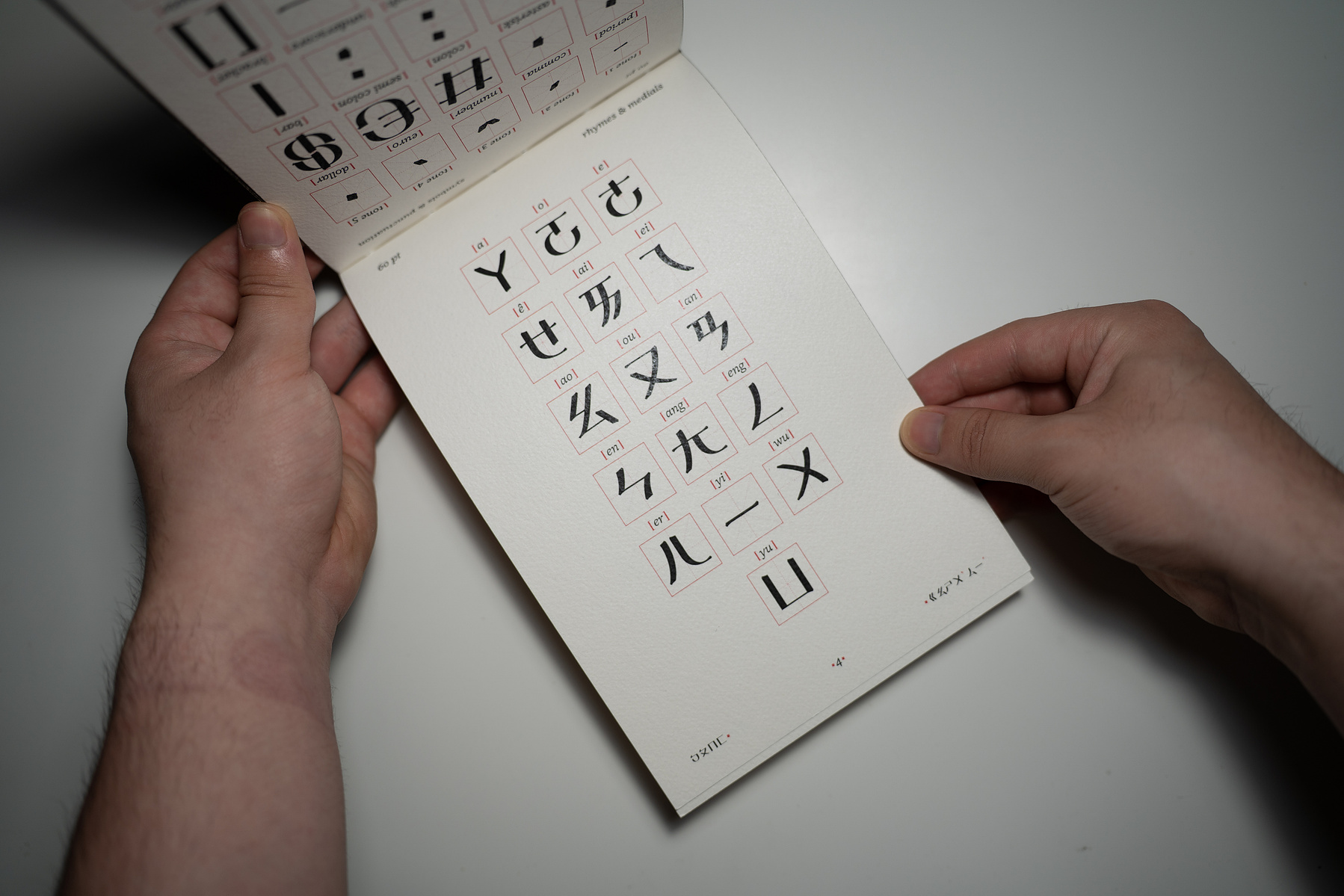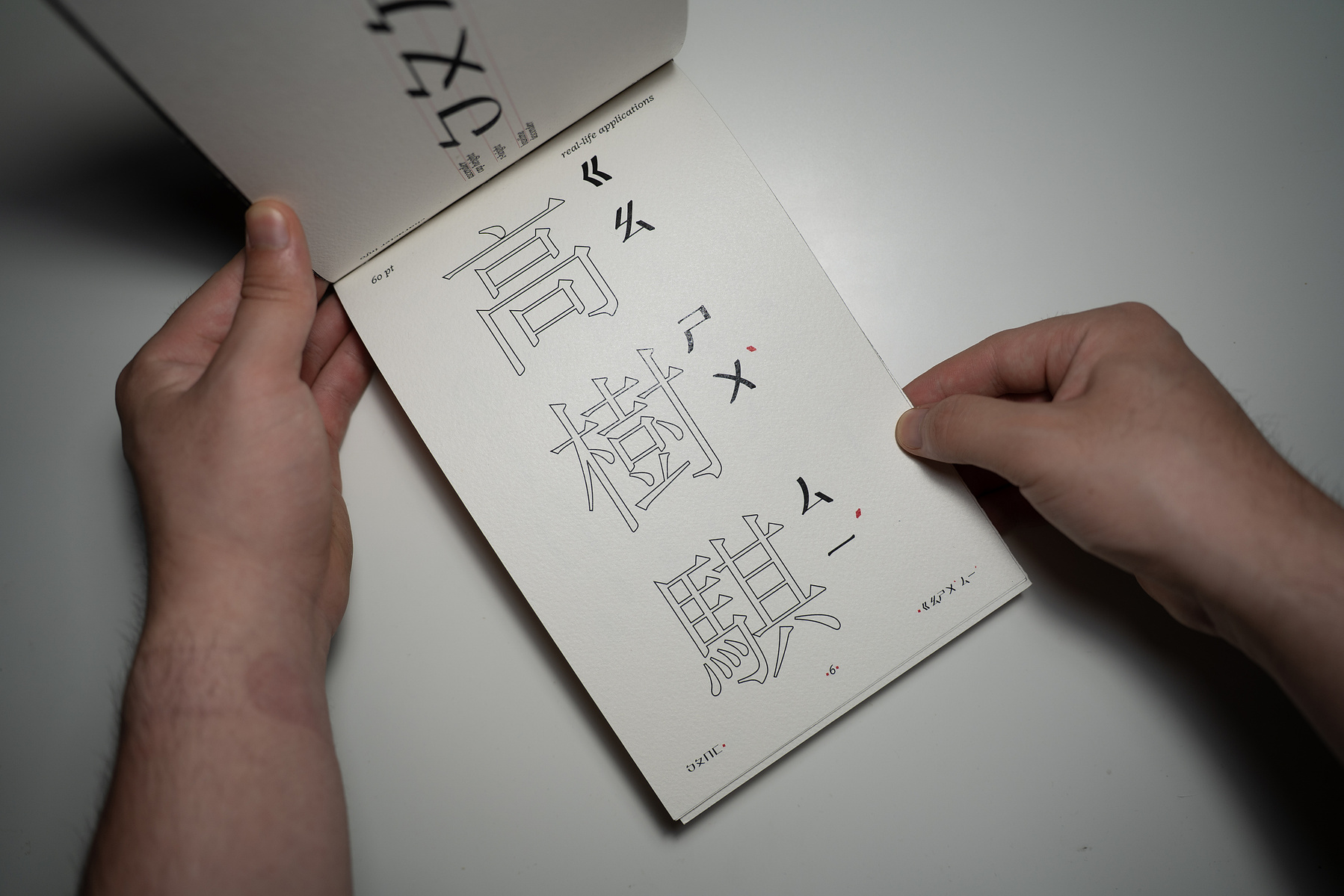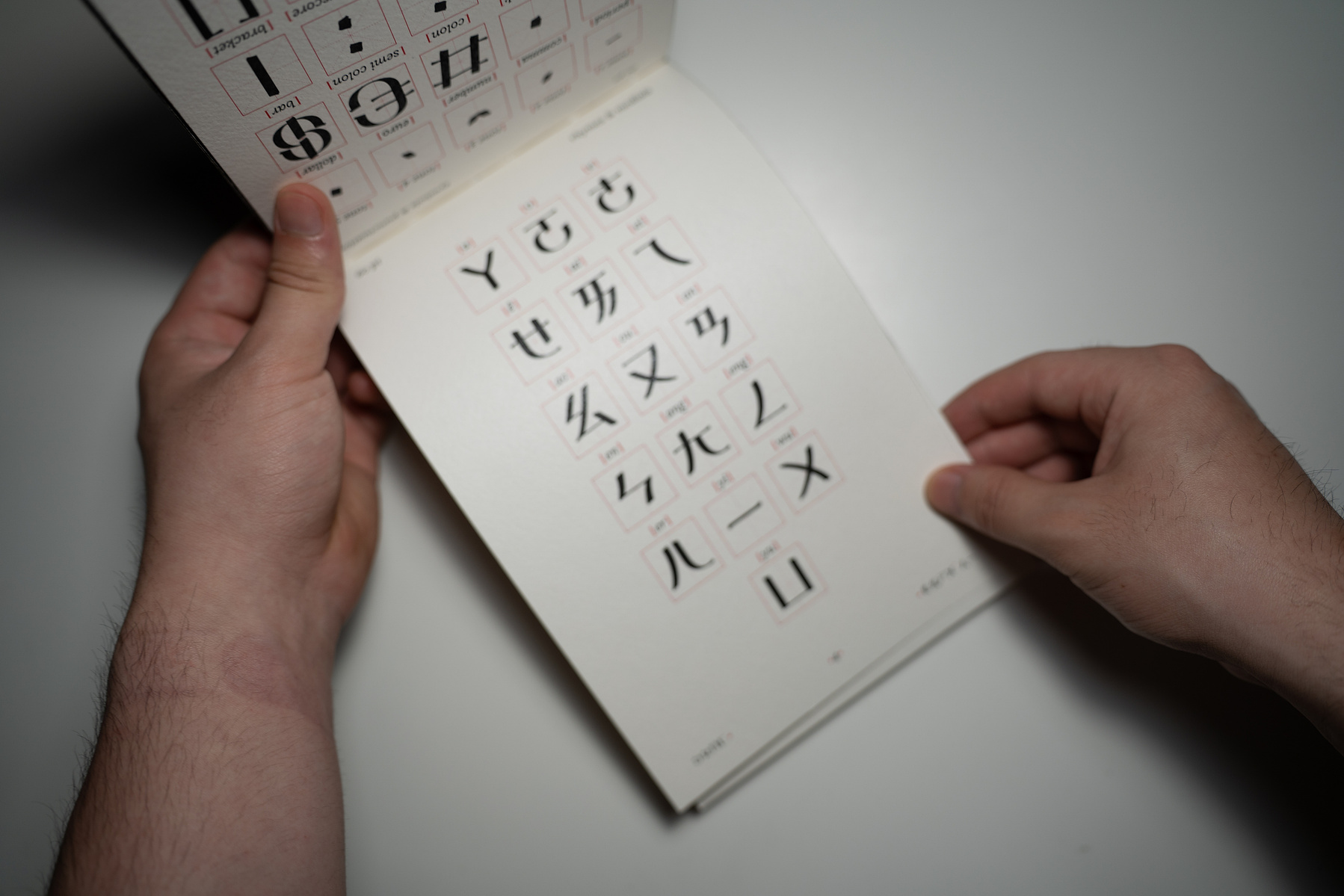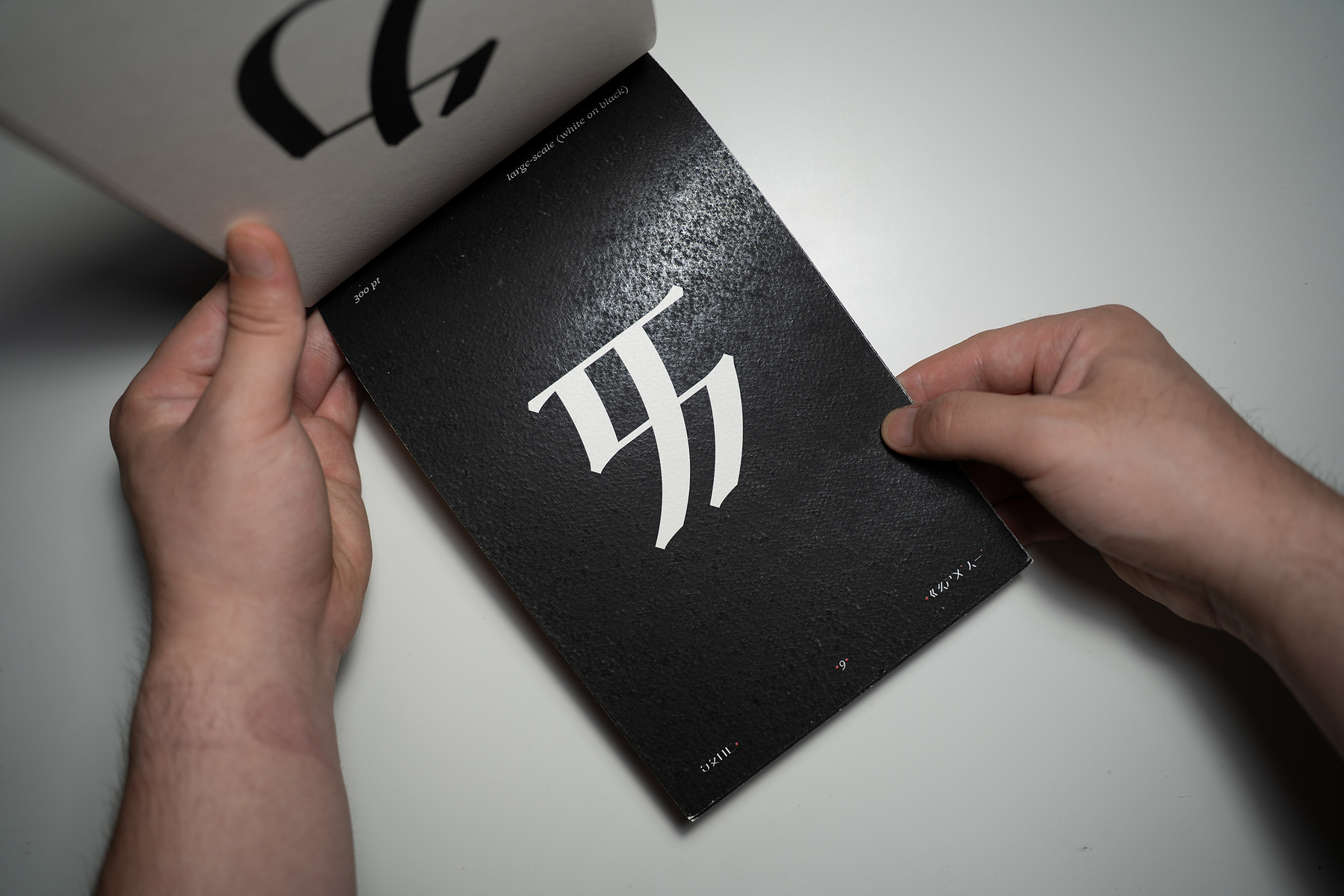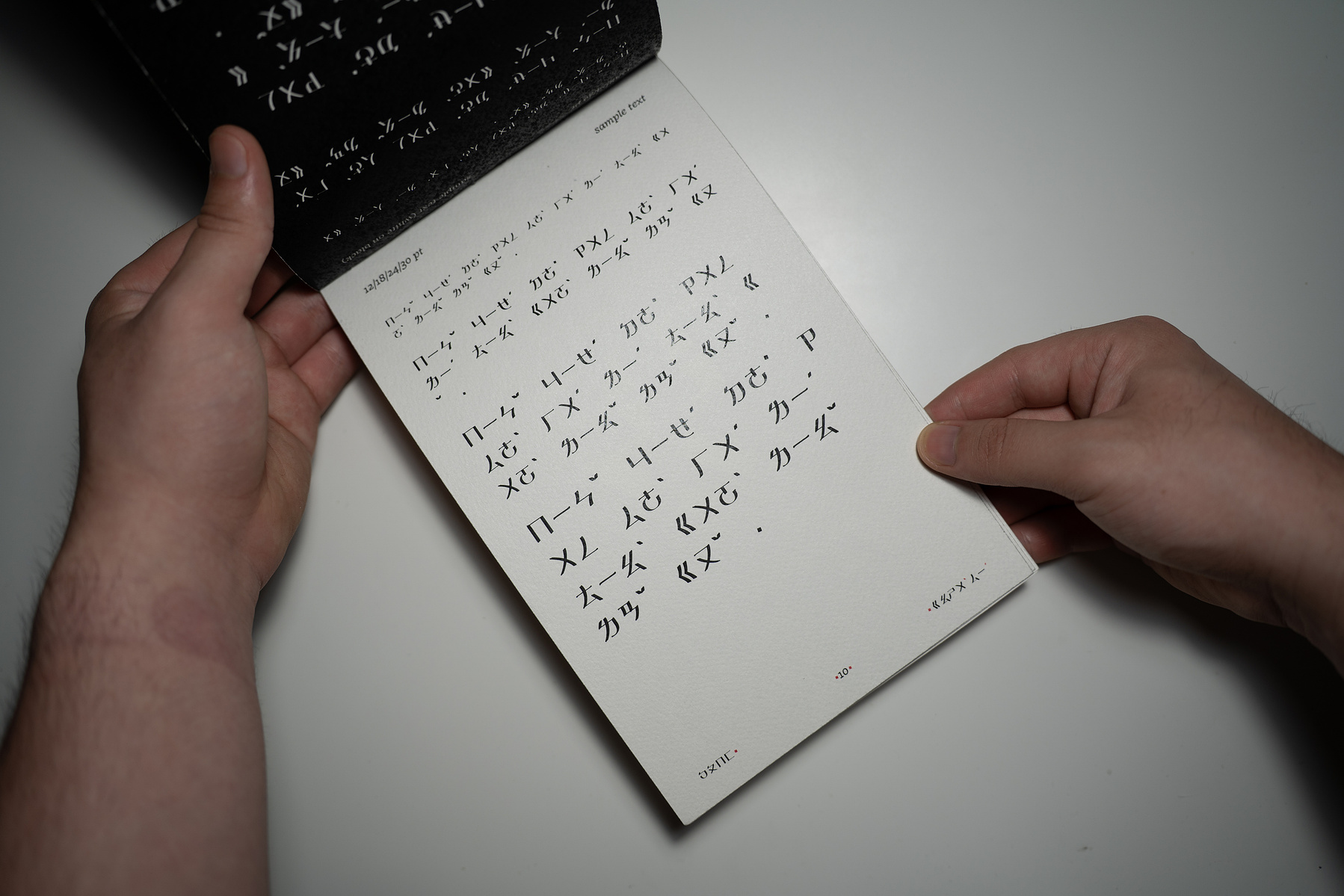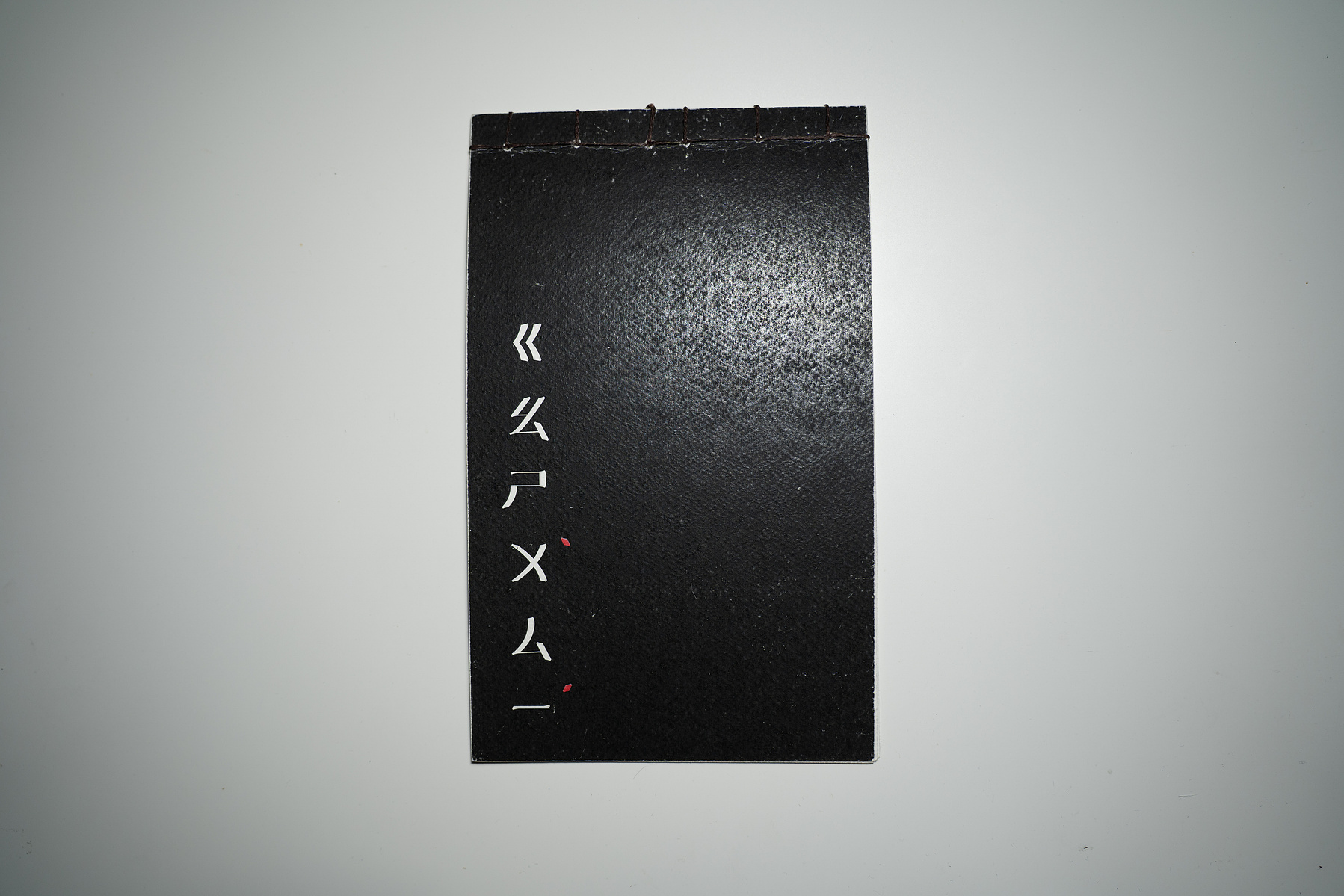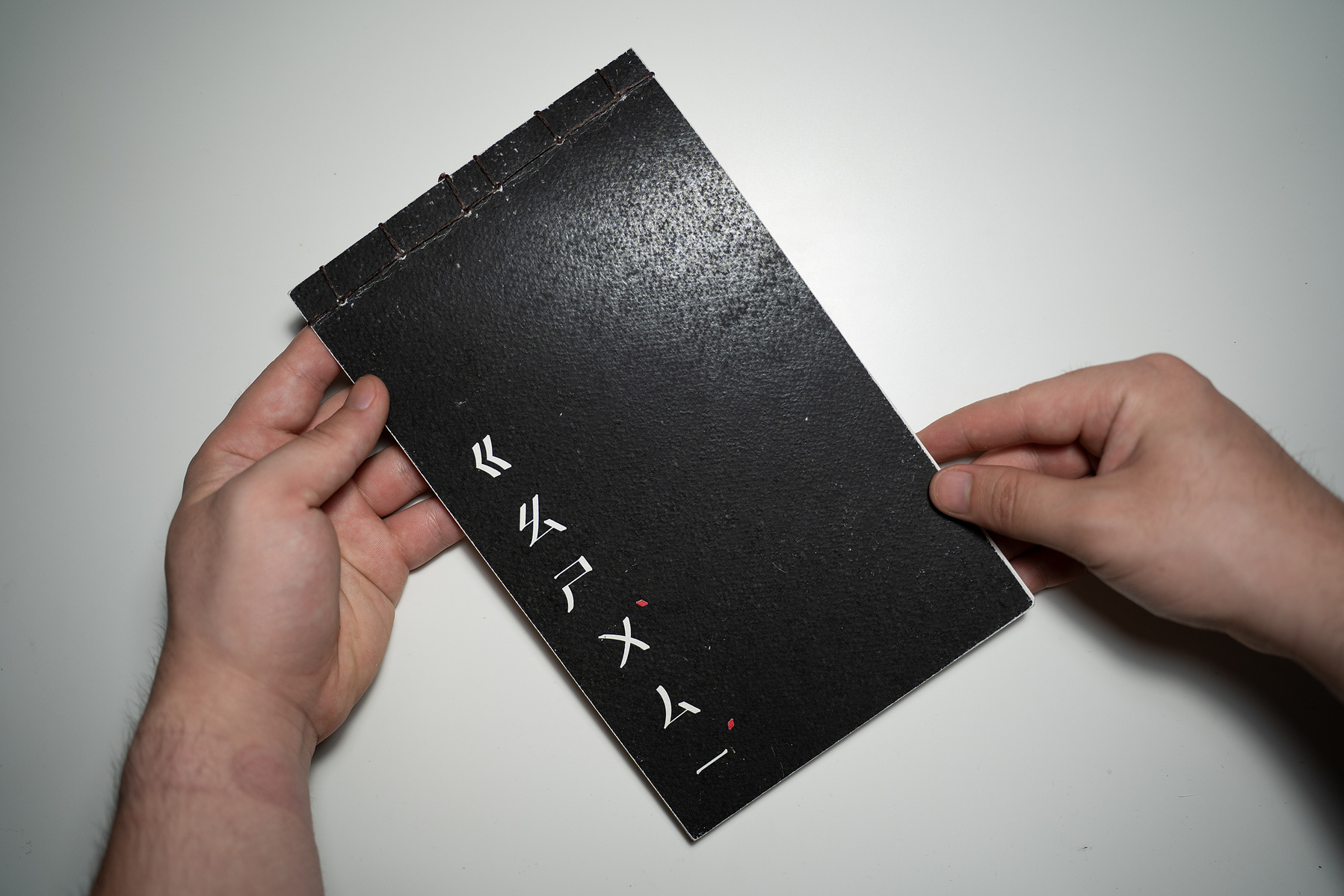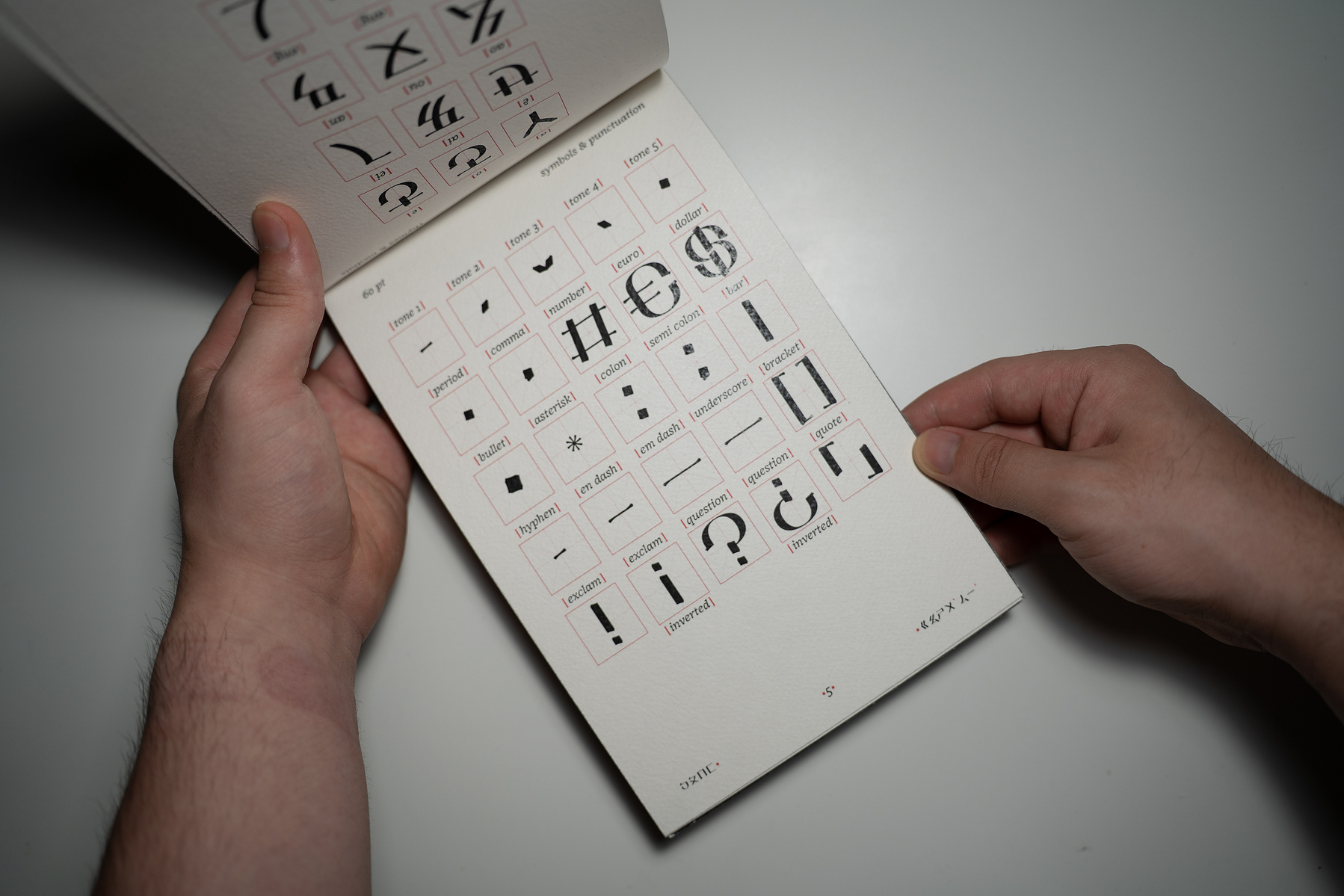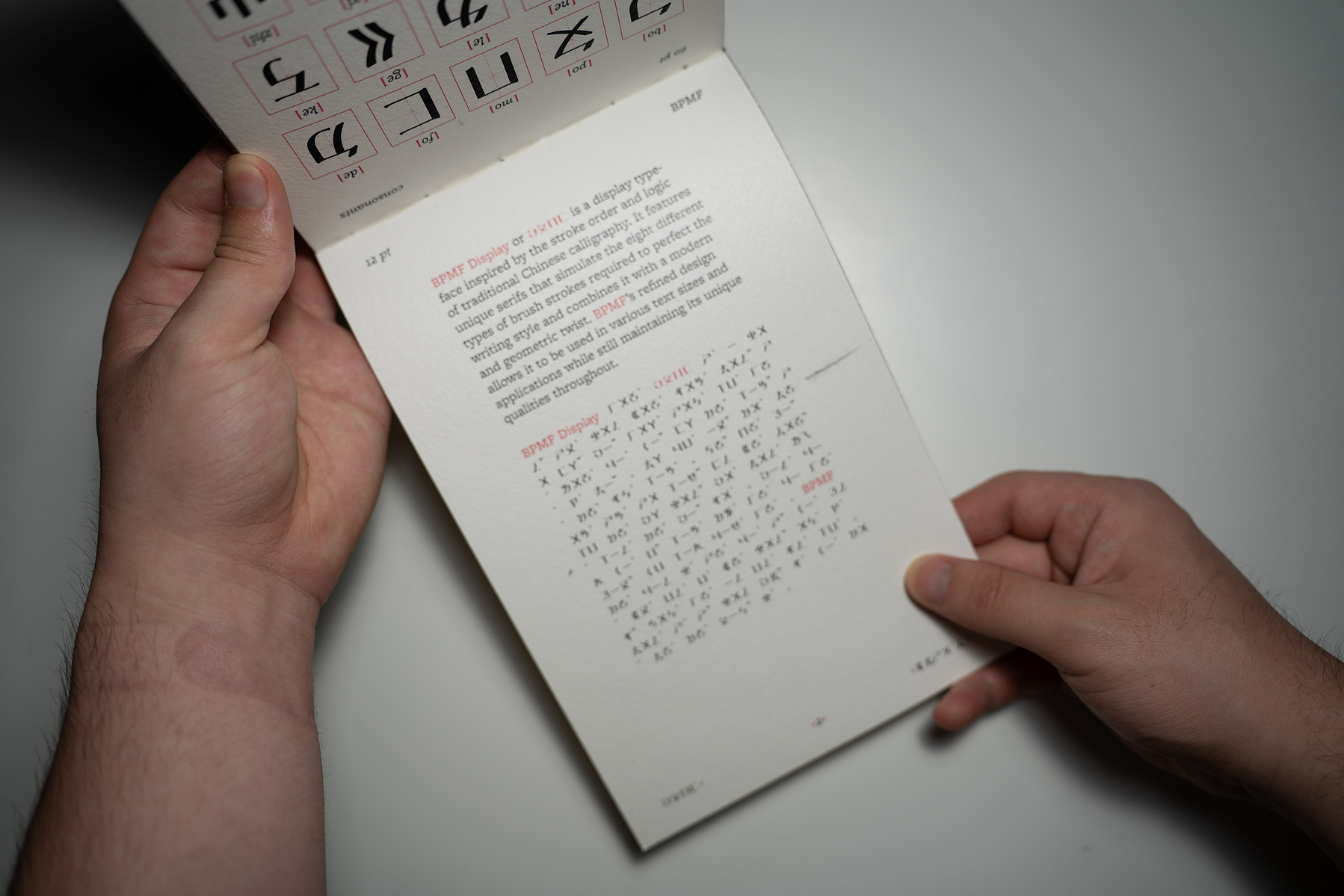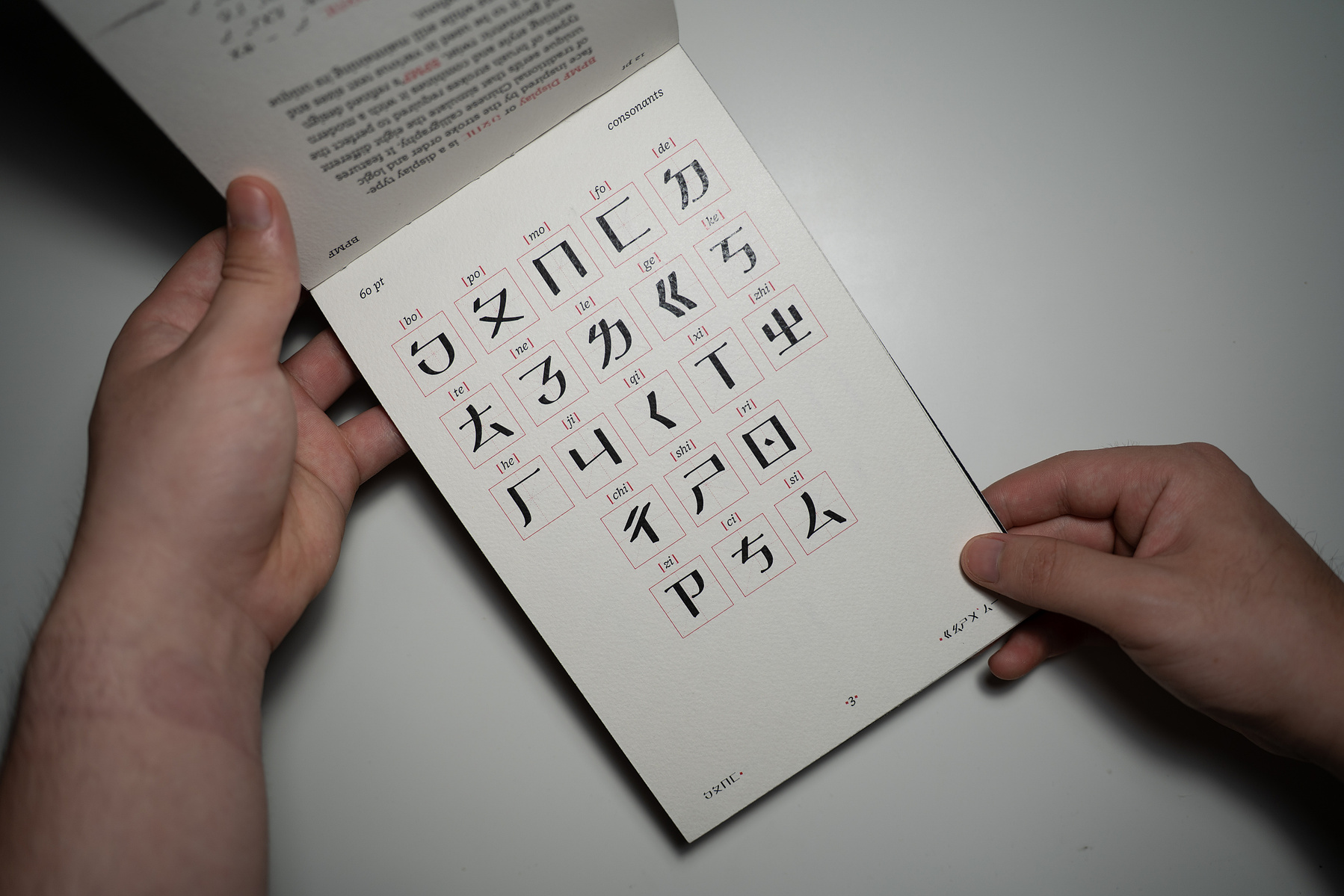
BPMF Display Typeface
BPMF Display is a display typeface inspired by the stroke order and logic of traditional Chinese calligraphy. It features unique serifs that simulate the eight different types of brush strokes required to perfect the writing style and combine it with a modern and geometric twist. BPMF Display's refined design allows it to be used in various text sizes and applications while still maintaining its unique qualities throughout.